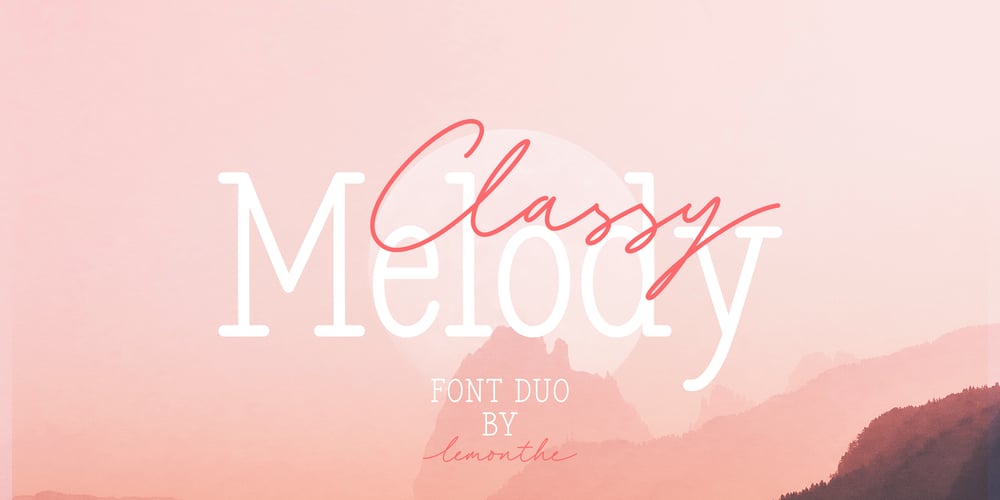
Classy Melody Font Family was designed by Dwi Ahidian and published by Lemonthe. Classy Melody contains 2 styles and family package options. Classy Melody is a lovely duo mix of a monoline script and slab serif font. Combining these two fonts on your next design will give a modern feel. It is perfect for many different projects such as logos & branding, invitation, stationery, wedding designs, signature, product designs, labels, photography, and much more!